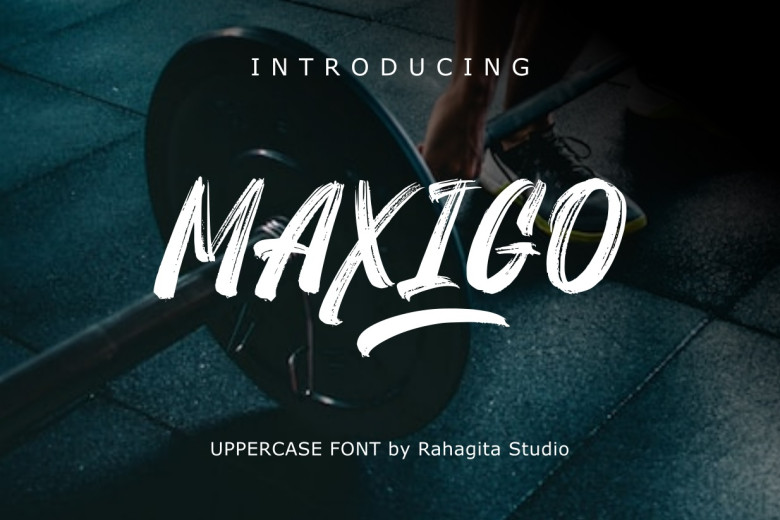
Maxigo Font
Maxigo is an energetic brush font. It oozes creativity and energy. Maxigo’s expressive brush strokes and uppercase characters add modernity and unique character to your design projects, perfect for headings, titles, branding, packaging, flyers and logos.
Maxigo Brush Script Font